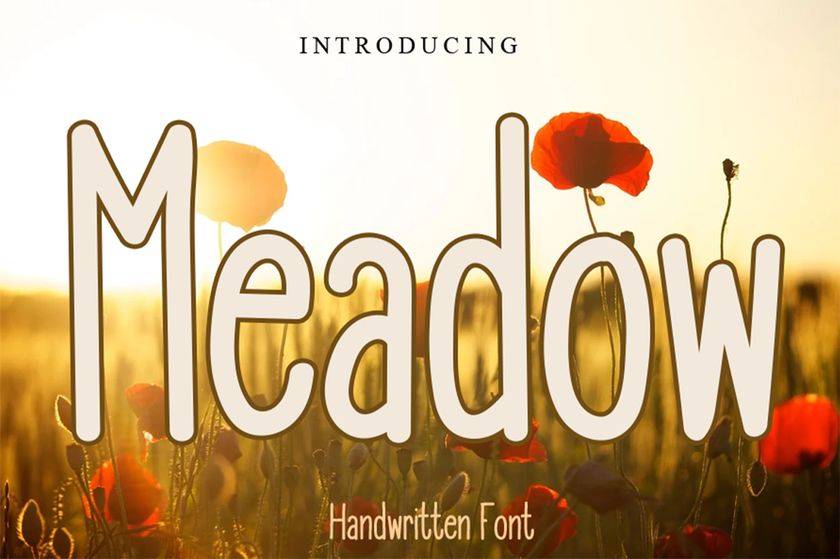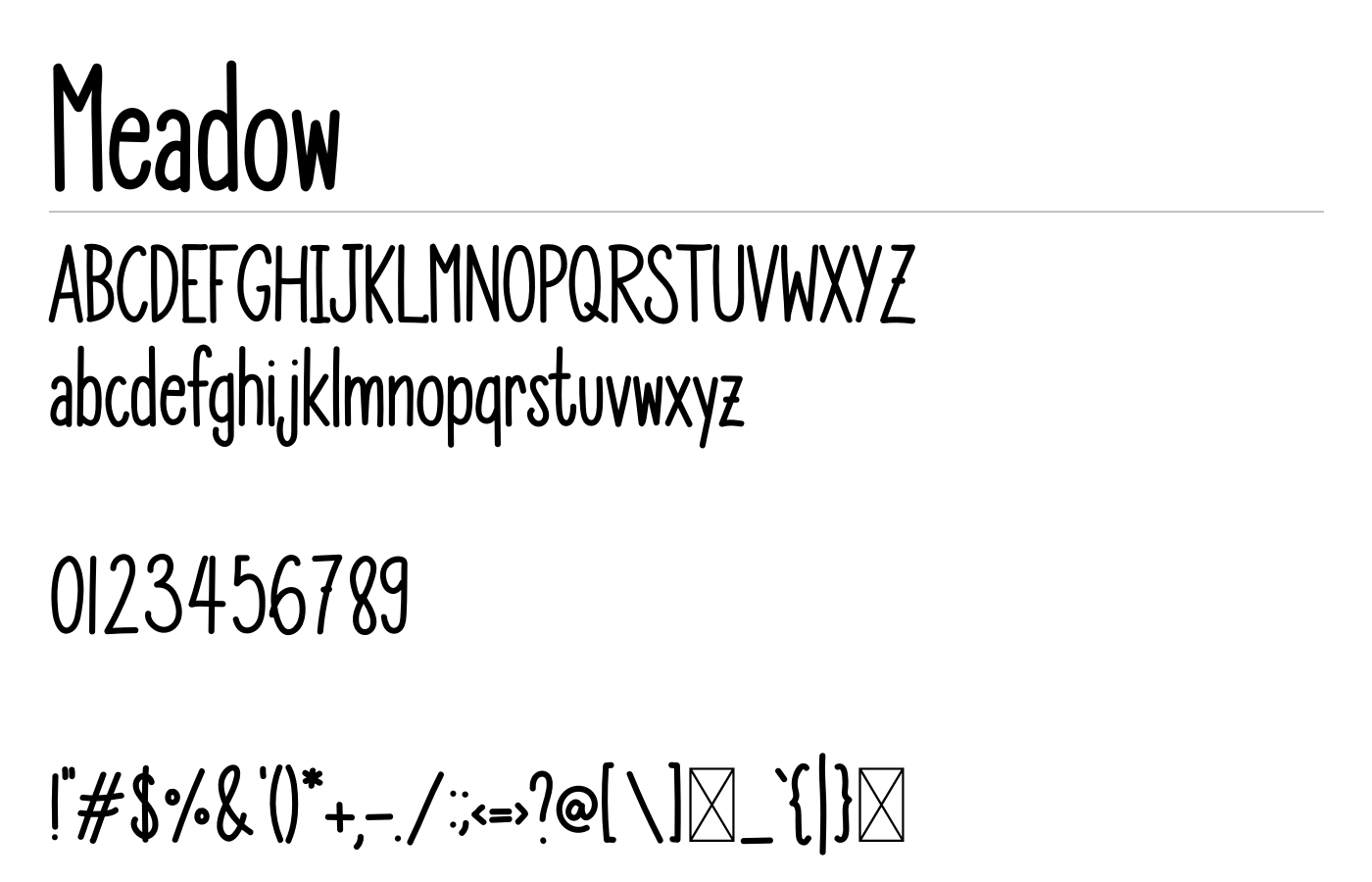
Meadow is a playful, tall, and narrow handwritten sans serif font with a casual, friendly feel. Its uneven strokes and quirky letterforms give it a charming, approachable personality, making it ideal for informal designs, children’s projects, or creative branding that seeks a personal touch. This font works well for headlines, logos, and fun packaging where a lighthearted and distinctive style is desired.
Meadow Font
About Meadow Font